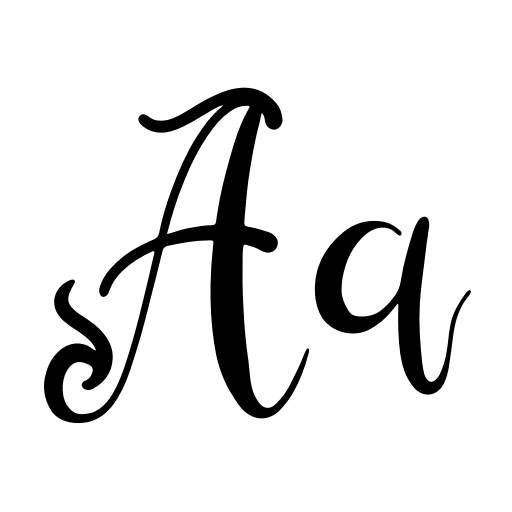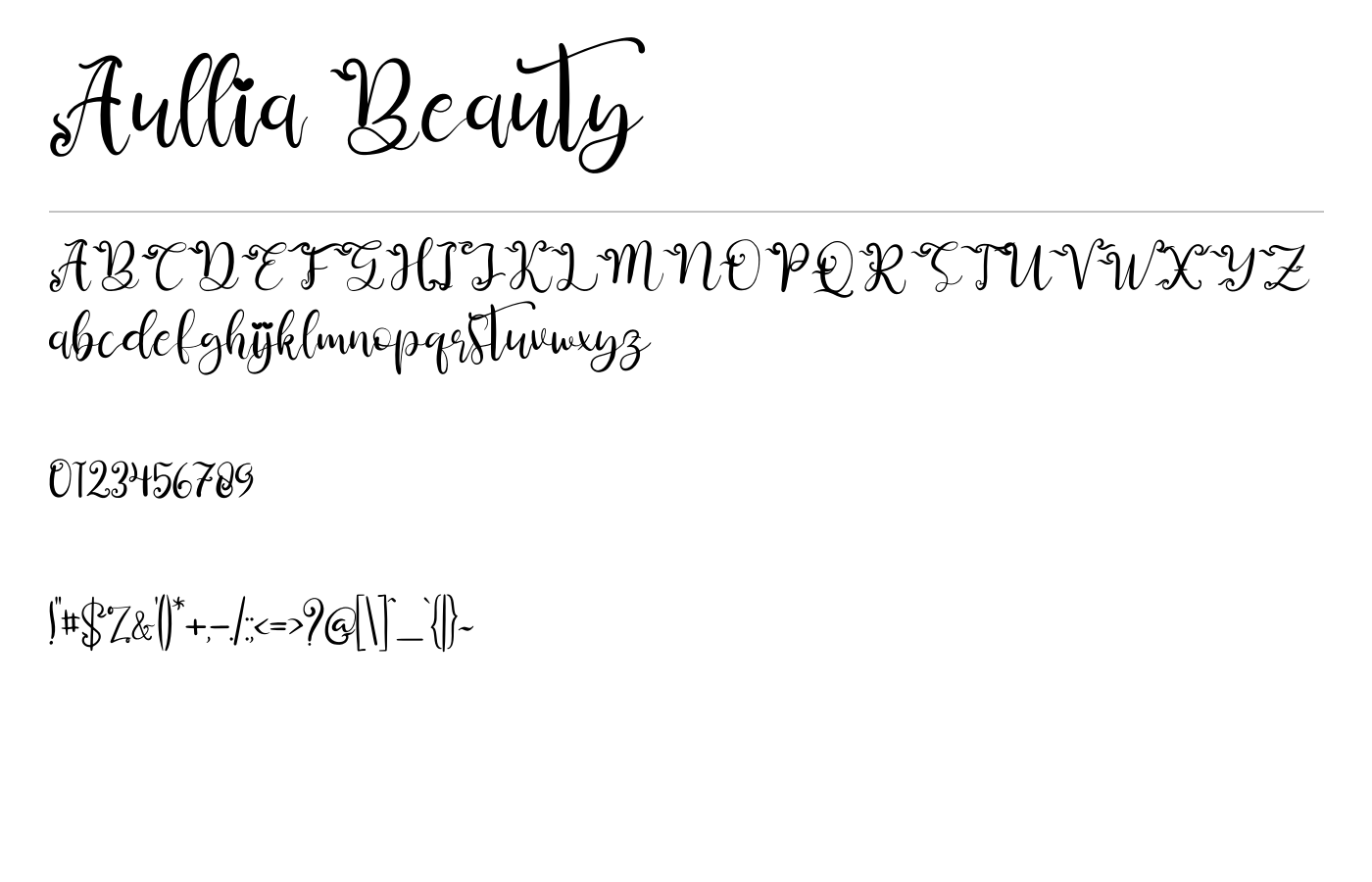
Aullia Beauty is an elegant, handwritten script font with flowing, decorative strokes and charming swashes, giving it a graceful and romantic feel. Its delicate curves and distinctive letterforms make it perfect for beauty, fashion, and wedding branding, adding a touch of sophistication and femininity to logos, invitations, and headlines. This font shines where a personal, stylish, and artistic touch is needed to enhance visual appeal.
Aullia Beauty Font
About Aullia Beauty Font